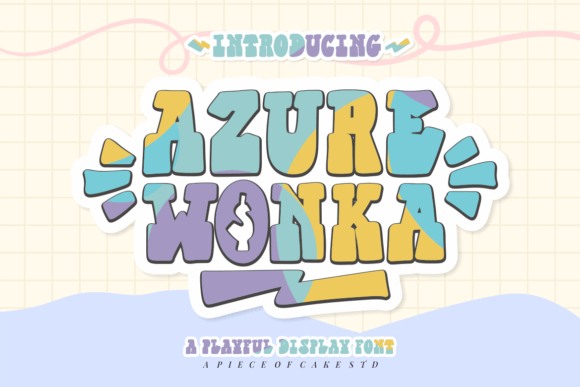
A Sweet Addition to Your Design Palette: Azure Wonka Font
Who hasn’t been inspired by the whimsical world of Willy Wonka? The sweet aroma of imagination, the thrill of discovery, and the joy of creation – all these emotions come together in the most magical of ways. As a designer, you know that sometimes, it’s just a matter of finding that perfect spark to ignite your creativity. For me, that spark is the Azure Wonka Font, a delightful display font that adds a touch of playfulness to any project.
The Azure Wonka Font is a charming and versatile typeface, perfect for greeting cards, headlines, magazines, logos, and many more applications. Its cute and playful nature makes it a valuable addition to any designer’s toolkit, allowing you to add a touch of whimsy to your work. Whether you’re working on a children’s book, a birthday invitation, or a marketing campaign, the Azure Wonka Font is sure to bring a smile to your face and a spring to your step.
- Font Family: Azure Wonka is a sans-serif font family.
- Unique Characteristics: Features a unique blend of futuristic and elegant design elements, with subtle rounded corners and a distinctive x-height.
I was excited to dive into the Azure Wonka Font, and I have to say, it’s a unique and intriguing addition to any design project. Here’s what works well:
- ✨ Unique design aesthetic: The Azure Wonka Font has a quirky, whimsical feel that’s perfect for projects that need a touch of magic.
- ✨ Wide language support: This font supports a wide range of languages, making it a great option for global brands and projects.
- ✨ Customizable: The font comes with various OpenType features, allowing designers to customize the look and feel to suit their needs.
- ⚠️ Limited legibility: At smaller font sizes, the Azure Wonka Font can be difficult to read, particularly for those with visual impairments.
- ⚠️ Not suitable for body text: Due to its unique design, the font is best used for headings and titles, rather than body text.
Overall, I think the Azure Wonka Font is a great addition to any designer’s toolkit, but it’s essential to use it judiciously. With its unique design aesthetic and wide language support, it’s perfect for projects that need a touch of whimsy. However, be mindful of its limitations, and use it sparingly to avoid readability issues.
Use the Azure Wonka Font to add a touch of whimsy and elegance to your designs. Experiment with different font sizes, colors, and styles to create a unique look. Pair the font with other elegant fonts for a sophisticated feel.
The Azure Wonka Font is ideal for use in wedding invitations, baby shower invitations, and other formal events. It’s also great for use in branding and marketing materials, such as business cards and brochures.